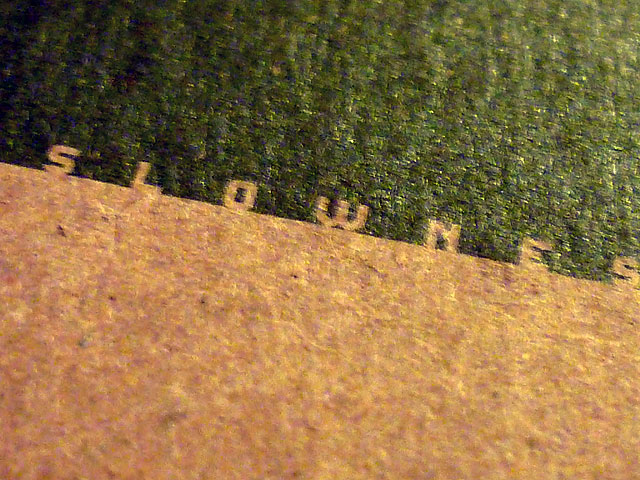
AGP Mono Low typeface developed for a catalogue for Slowness a group art exhibit at Marylhurst university gallery. Experimental typeface AGP Mono was customized for the project to include multiple weights, small caps and text numerals.